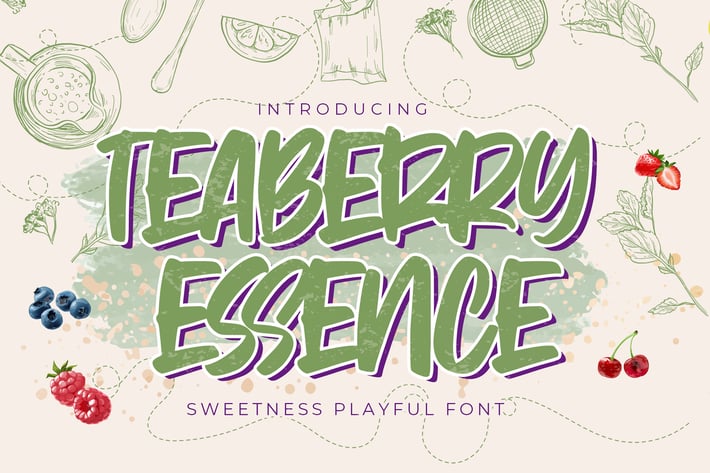
Teaberry Essence - Sweetness Playful Font
Teaberry Essence is Sweetness Playful Font,elegant. This versatile has a wide range of applications ranging from greeting cards to kids’ crafts, and is guaranteed to add a sweet touch to your next design.social media posts,
advertisements,watermark,invitation,stationery and any projects.
+ Ligature